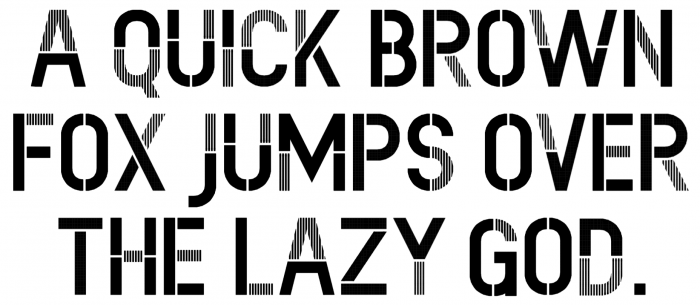
Uppercase font with some alternates in the lowercase zone. You can find an extra third "S" in the "t" glyph. See also zhellbar, the solid colour version.
Inspired, in a certain way, by the work "The Ghost in the Shell" by the great mangaka Masamune Shirow.
Oh this is a faux-Bézier design, very nice curves my friend!!
@Sed4tives: Thank you, compa! Glad you like it. Yes, first of all I wanted to make the font with macaroni, but the small format did not allow me to work well with angular letters (especially A, V, W...), so I finally opted for the faux-Bézier style. It's been a good return to the big formats. ?
Can't exactly figure out how to word it, but the simultaneous clean lines with the almost glitchy stripe look work so swell together~